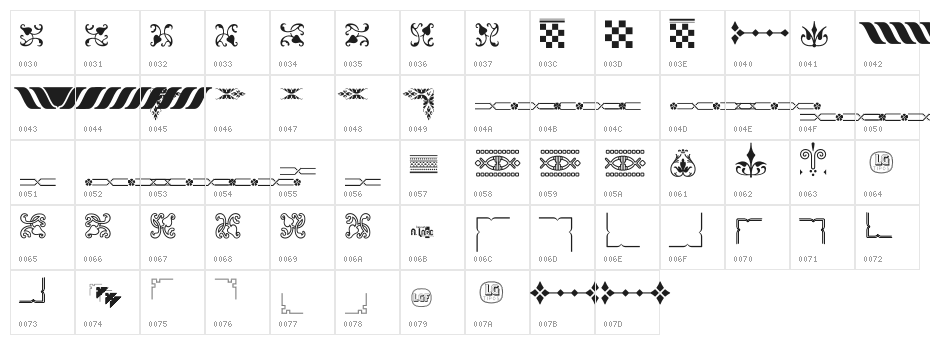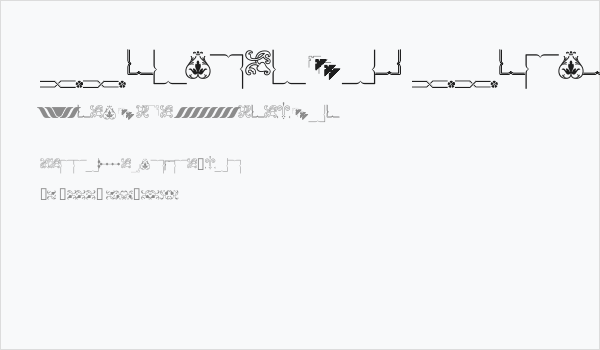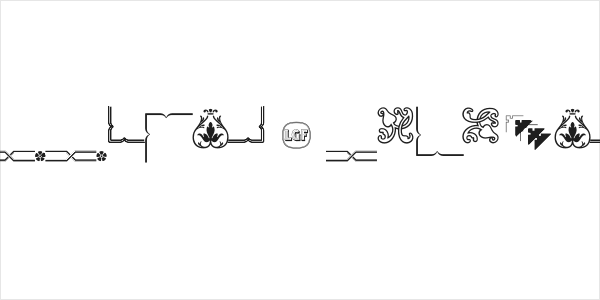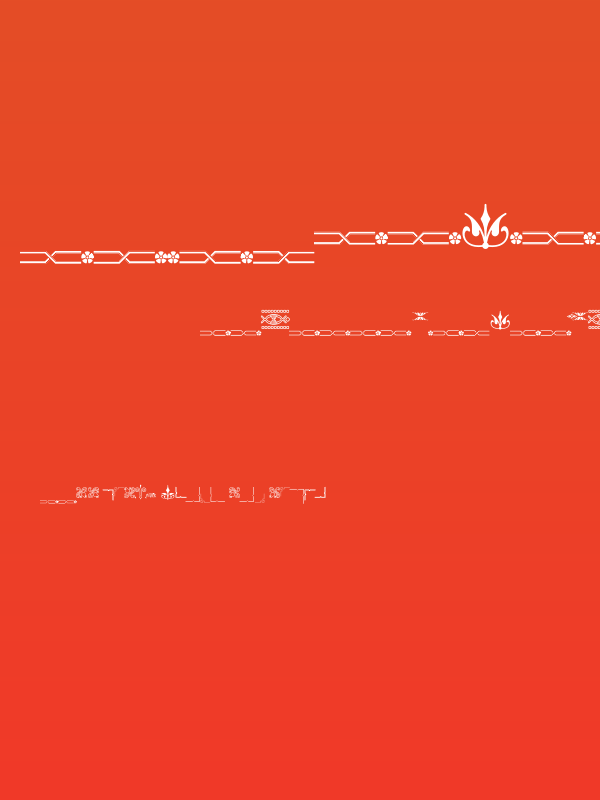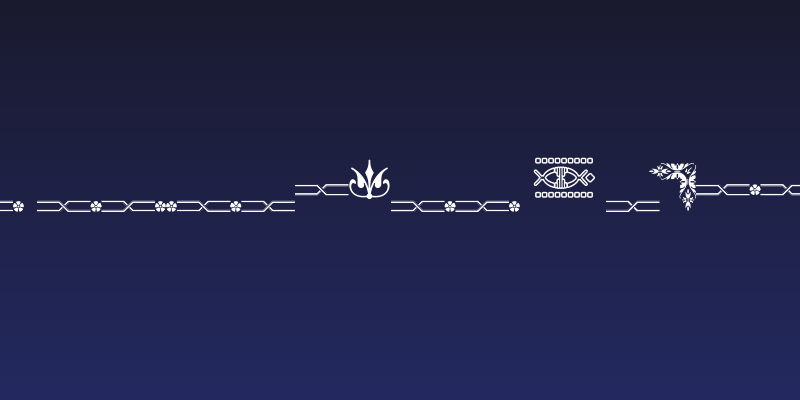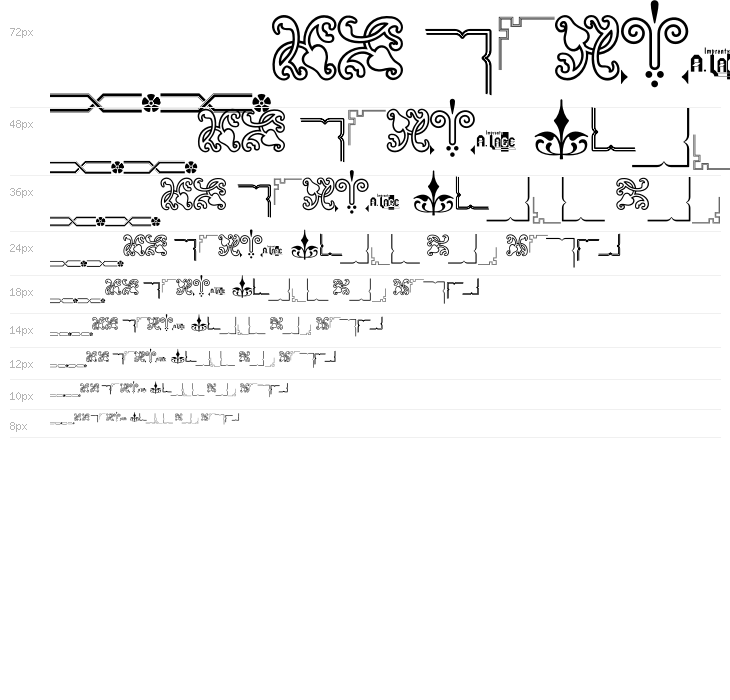
Ornamentos Orlas y Vinetas LGt Regular Font
Ornamentos Orlas y Vinetas LGt Regular Description
A decorative dingbat set featuring ornate borders, flourishes, frames, and ornamental motifs, with a mix of intricate and geometric elements suitable for embellishing documents or designs.
| Overall Style | Vintage, Decorative |
| Use Case | Borders, frames, dividers, and ornamental accents. |
| Proposed Projects | Invitations, certificates, vintage posters, book covers, decorative dividers, scrapbooking, and graphic embellishments. |